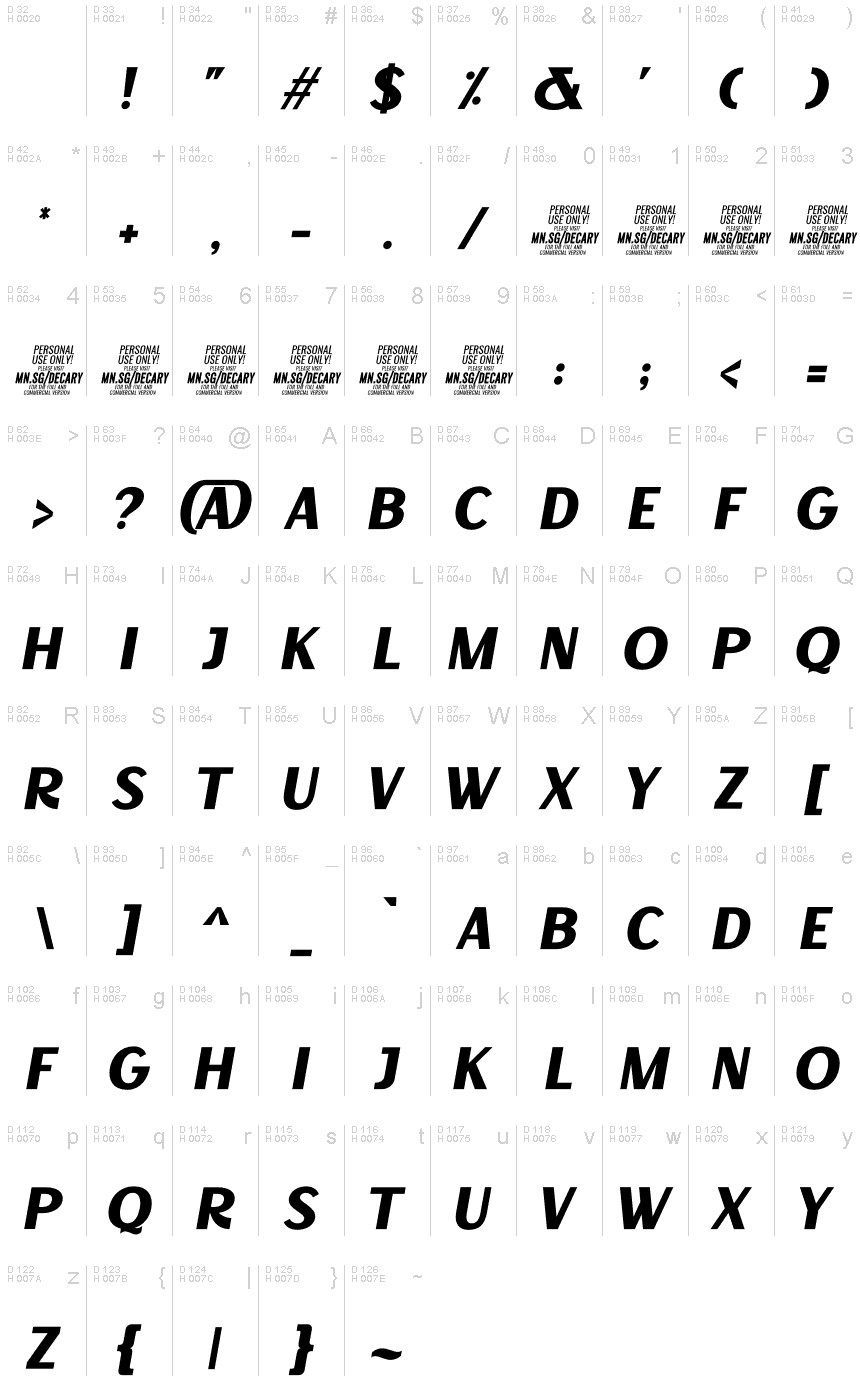
Decary Sans BoldIt PERSONAL USE Regular
Introducing Decary Sans Bold Italic, designed by Mans Greback to add a modern and bold twist to the classic sans serif font family. From logos to headlines, this font is perfect for creative projects ranging from web design to posters, flyers and more.